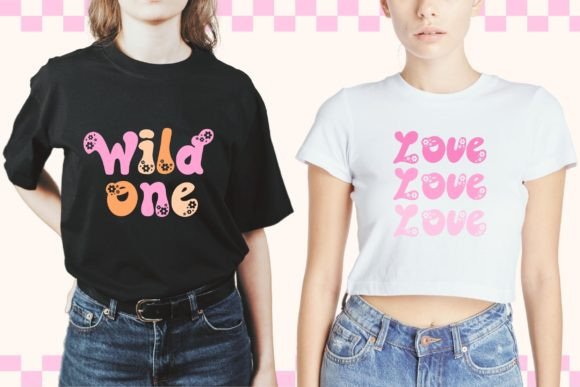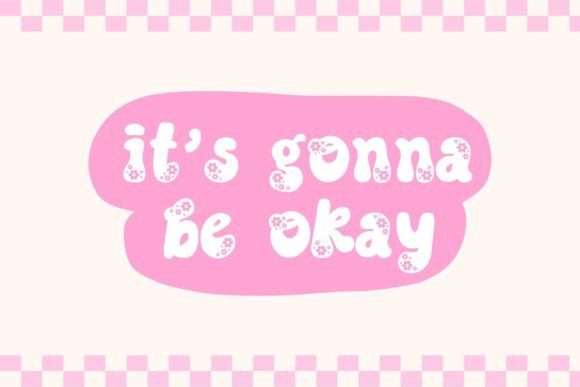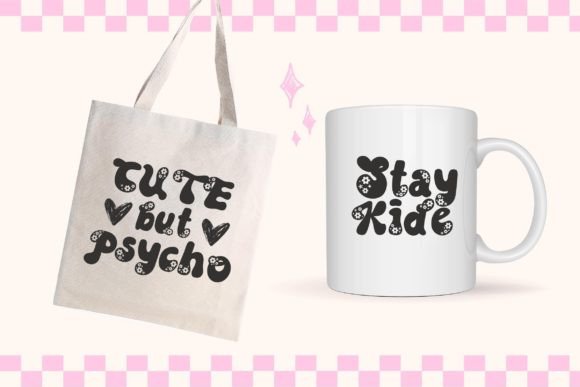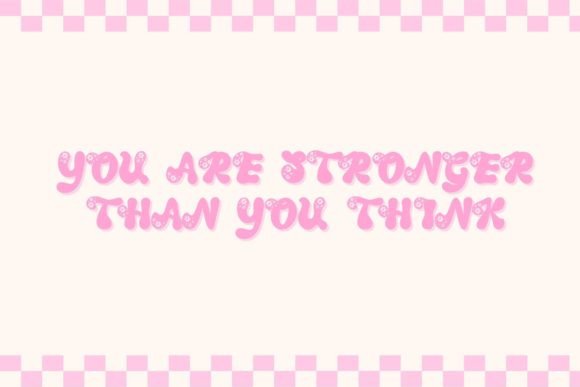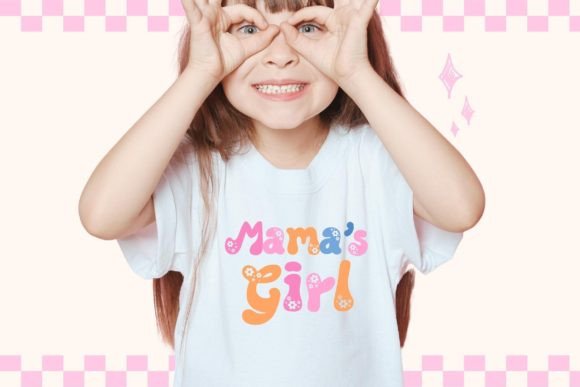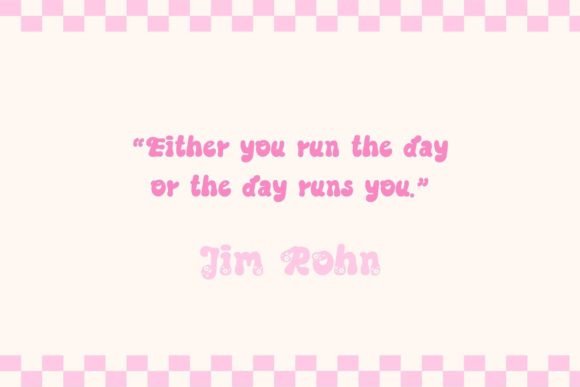
Introduction to Daisy Disco Font Font
Fonts play a crucial role in design, and the Daisy Disco Font font is a typeface that brings both character and versatility to any project. Whether you’re working on a branding project, a website, or a print design, the Daisy Disco Font font offers a unique style that can elevate your work.
Introducing “Daisy Disco” the groovy retro display font that transports you straight to the swinging 60s and 70s, with bold lettering and charming flower details.
This font is the perfect blend of nostalgia and vibrancy, offering two captivating styles – Regular and Solid Whether you’re designing vintage-inspired retro posters, trendy shirts, captivating tote bags, groovy mugs, flower-powered stickers, memorable logos, engaging social media content, retro packaging, inspiring quotes, or funky wall art, “Daisy Disco” brings a sense of retro euphoria to every creative venture.
Key Features of Daisy Disco Font Font
Why Choose Daisy Disco Font Font?
The Daisy Disco Font font is more than just a typeface – it’s a design tool that helps you communicate your message with style and clarity. Its unique character set and versatile design make it suitable for a wide range of applications, from elegant invitations to bold headlines.
With its carefully crafted letterforms and balanced proportions, the Daisy Disco Font font ensures readability and visual appeal across all mediums.
What makes Daisy Disco Font font special?
The Daisy Disco Font font stands out with its unique design, exceptional readability, and versatility across various design applications.